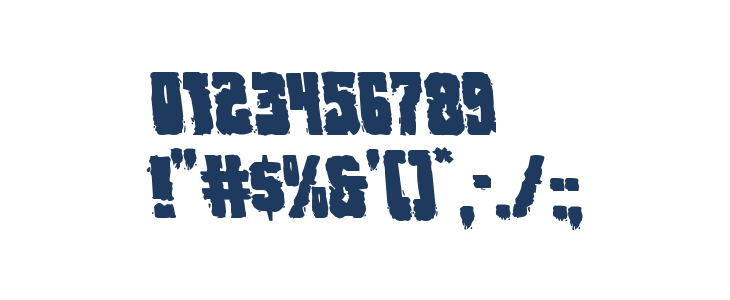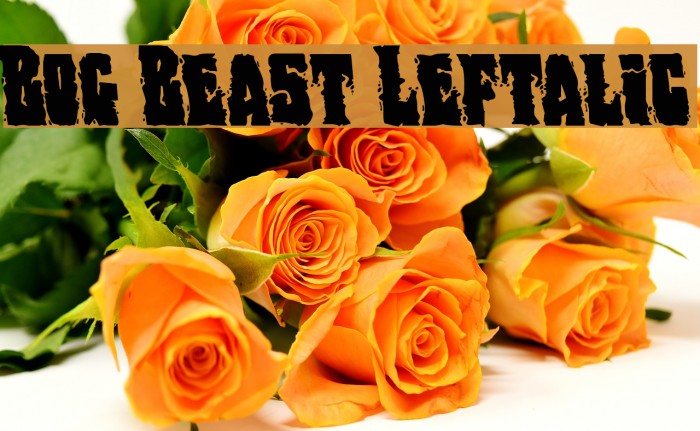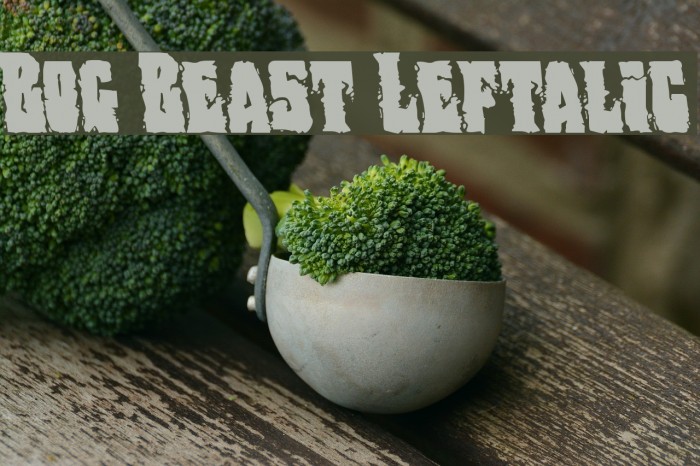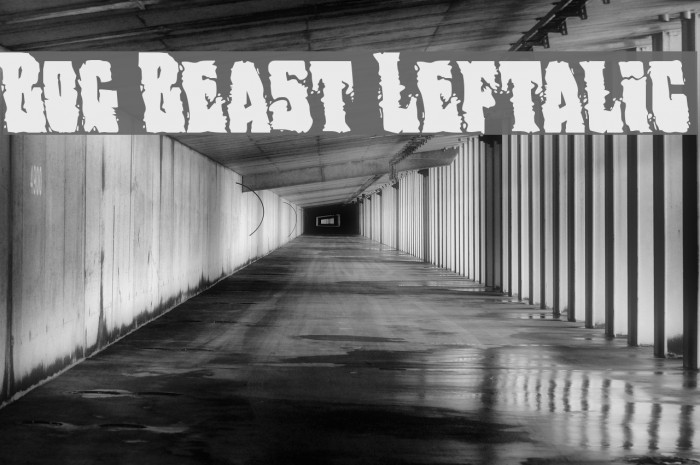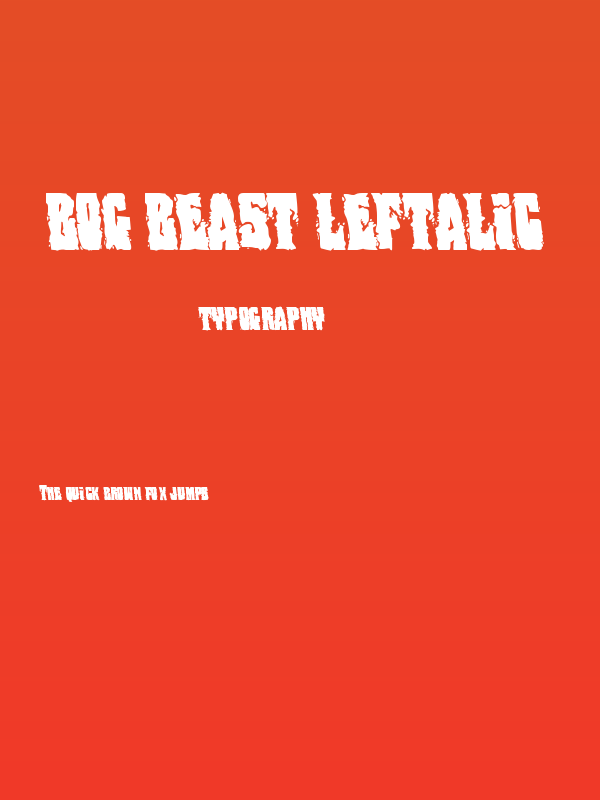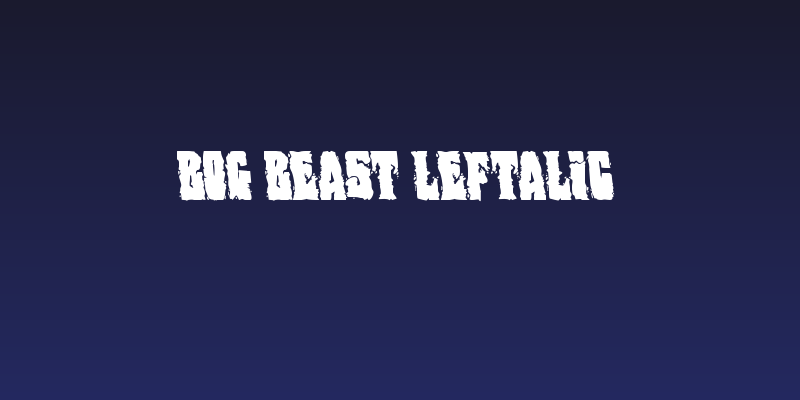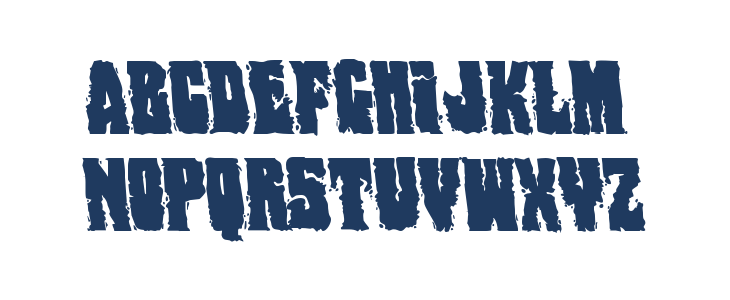
Bog Beast Leftalic Font
Bog Beast Leftalic Description
This font features a rugged, distressed appearance with irregular edges, giving it a bold and impactful look. The characters are heavily stylized, resembling a weathered or eroded texture, which adds a sense of drama and intensity. The uppercase and lowercase letters maintain a consistent style, with each character appearing as if it has been carved from stone or wood. The numbers and special characters follow the same design ethos, ensuring uniformity across all glyphs. This font is ideal for projects that require a strong, eye-catching typeface that conveys a sense of raw power and energy.
Proposed ProjectsPerfect for horror movie posters, video game titles, Halloween-themed events, or any project needing a dramatic and intense typeface.